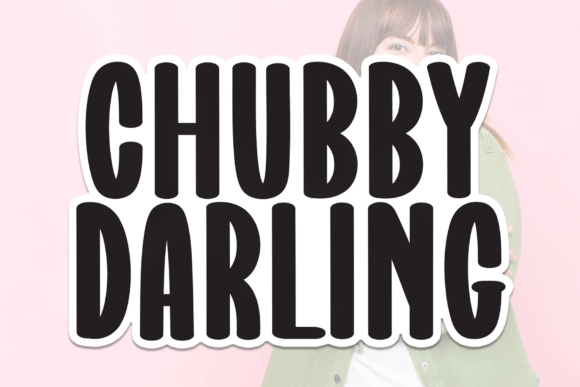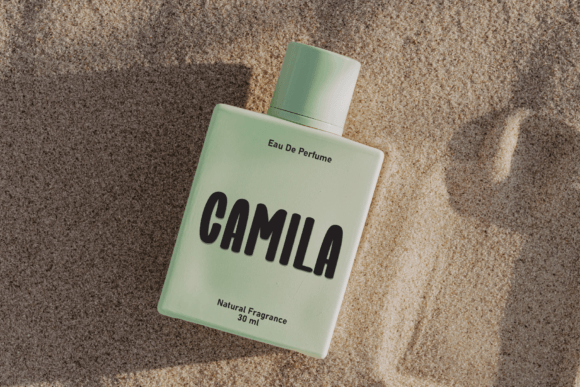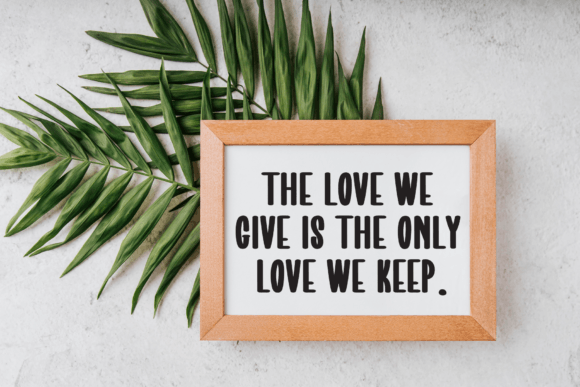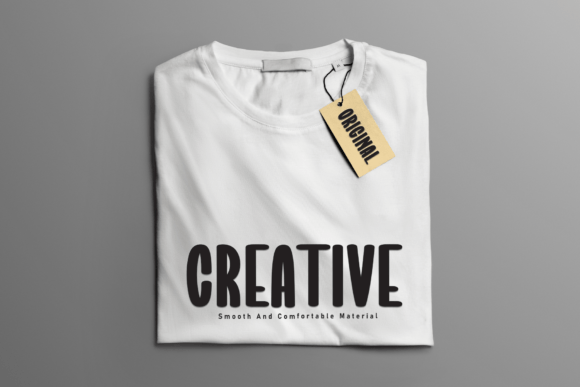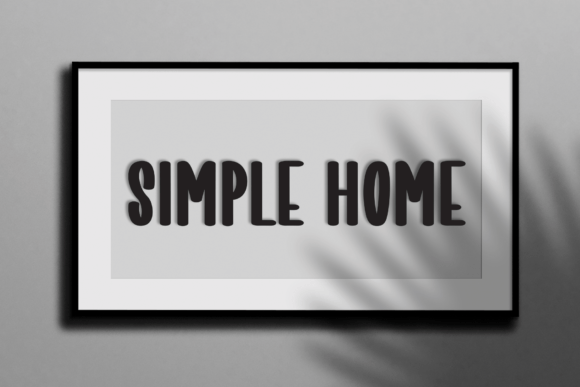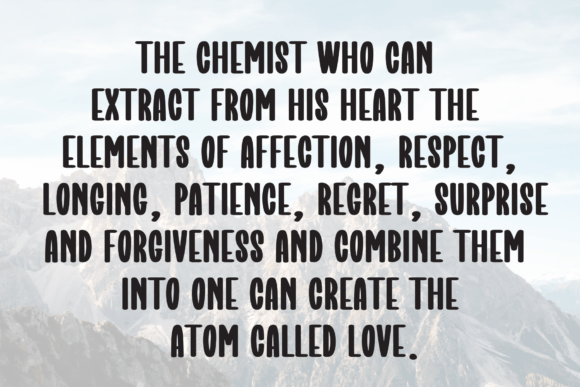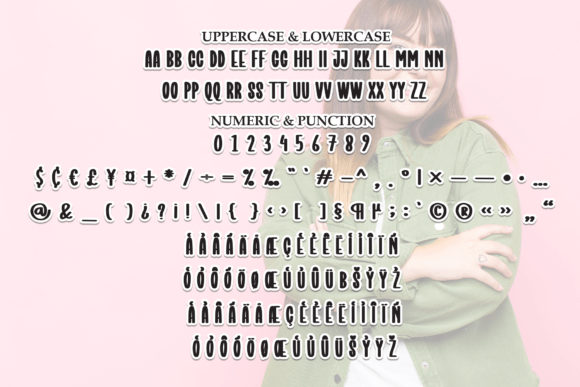
The Perfect Font for Your Next Design Project
As designers, we’ve all been there – staring at a blank canvas, unsure of where to start. The blank page can be daunting, but it’s also an opportunity to bring a fresh idea to life. Sometimes, it takes just the right font to spark creativity and guide the direction of your project. For me, that font is the Chubby Darling Font – a clean, modern, and effortlessly stylish sans-serif that’s perfect for a wide range of design projects.
Whether you’re working on a blog, a brochure, or even a social media campaign, the Chubby Darling Font brings a friendly and approachable vibe that’s hard to resist. Its balanced proportions and clean lines make it a versatile choice that’s both modern and timeless. By incorporating the Chubby Darling Font into your design repertoire, you’ll add a valuable tool to your creative arsenal, empowering you to take on any project with confidence.
Key Features of Chubby Darling Font
- Font Family: Chubby Darling Font is a unique, hand-drawn font that features a playful, whimsical design.
- Character Set: The font includes a wide range of characters, including uppercase and lowercase letters, numbers, and punctuation marks.
- Unique Characteristics: The font features a distinctive, hand-drawn style with irregular lines and shapes, giving it a charming, personal feel.
Chubby Darling Font Review
Overall, I’m a fan of the Chubby Darling Font, but as with any design element, it’s not perfect. Here are my honest thoughts:
The playful, whimsical feel is perfect for creative projects, such as children’s books, advertisements, or social media graphics.
The font’s bold lines and rounded edges create a friendly, approachable vibe that’s hard to resist.
The font’s versatility allows it to work well in both digital and print formats.
The font may not be suitable for formal or professional projects, as its playful feel may come across as unprofessional.
The font’s rounded edges and bold lines can make it difficult to read in small sizes or at a distance.
The font may not be suitable for projects requiring a lot of text, as its playful feel can become overwhelming.
In conclusion, the Chubby Darling Font is a fun and playful addition to any design project. While it may have some limitations, its versatility and friendly feel make it a great choice for creative projects. Just be mindful of its limitations and use it accordingly.
Here are some tips for getting the most out of the Chubby Darling Font:
- Use it for creative and playful designs.
- Pair it with bold and bright colors to create a fun and energetic look.
- Experiment with different font sizes and styles to add emphasis and visual interest.
The Chubby Darling Font is commonly used for:
- Children’s products and toys.
- Playful and whimsical designs.
Alternatives to Chubby Darling Font for Designers
The Great Vibes Font is a beautiful, cursive script font that’s perfect for creating a whimsical and playful atmosphere. It’s ideal for use in titles, headings, and quotes where you want to add a touch of elegance and sophistication. Great Vibes Font is similar to Chubby Darling Font in its cursive style, but it has a more refined and polished look.
The Lato Font is a modern sans-serif font that’s highly versatile and suitable for a wide range of designs. It’s perfect for use in body text, headings, and titles where you want to create a clean and minimalist look. Lato Font is a great alternative to Chubby Darling Font for designs that require a more straightforward and modern aesthetic.
The Alex Brush Font is a handwritten script font that’s perfect for creating a personal and emotive atmosphere. It’s ideal for use in titles, headings, and quotes where you want to add a touch of warmth and personality. Alex Brush Font is similar to Chubby Darling Font in its handwritten style, but it has a more rustic and vintage look.